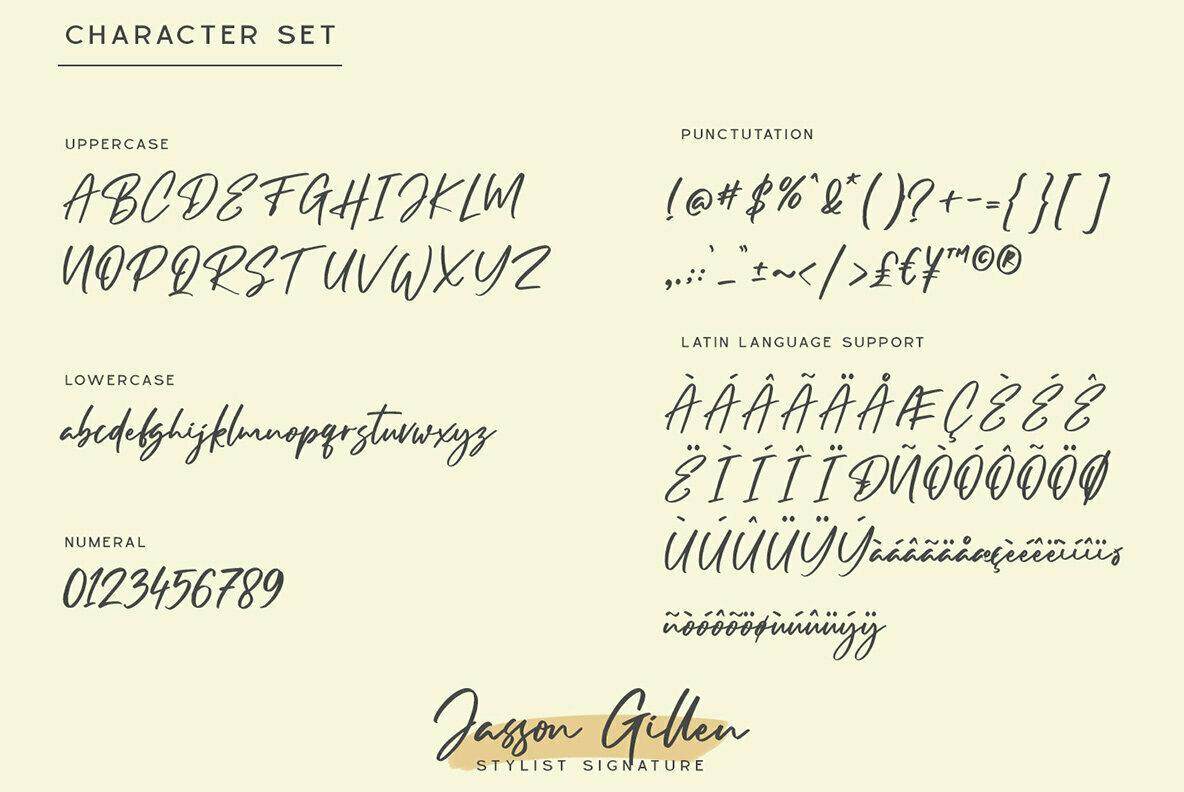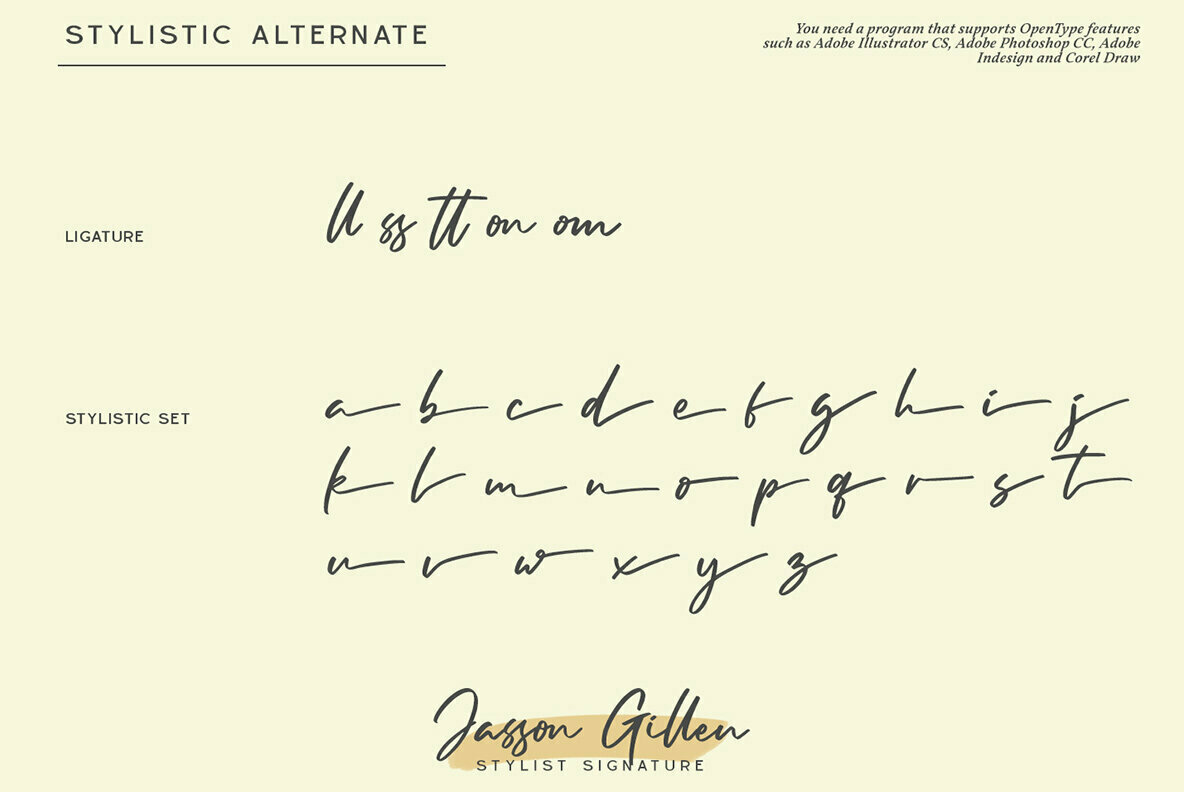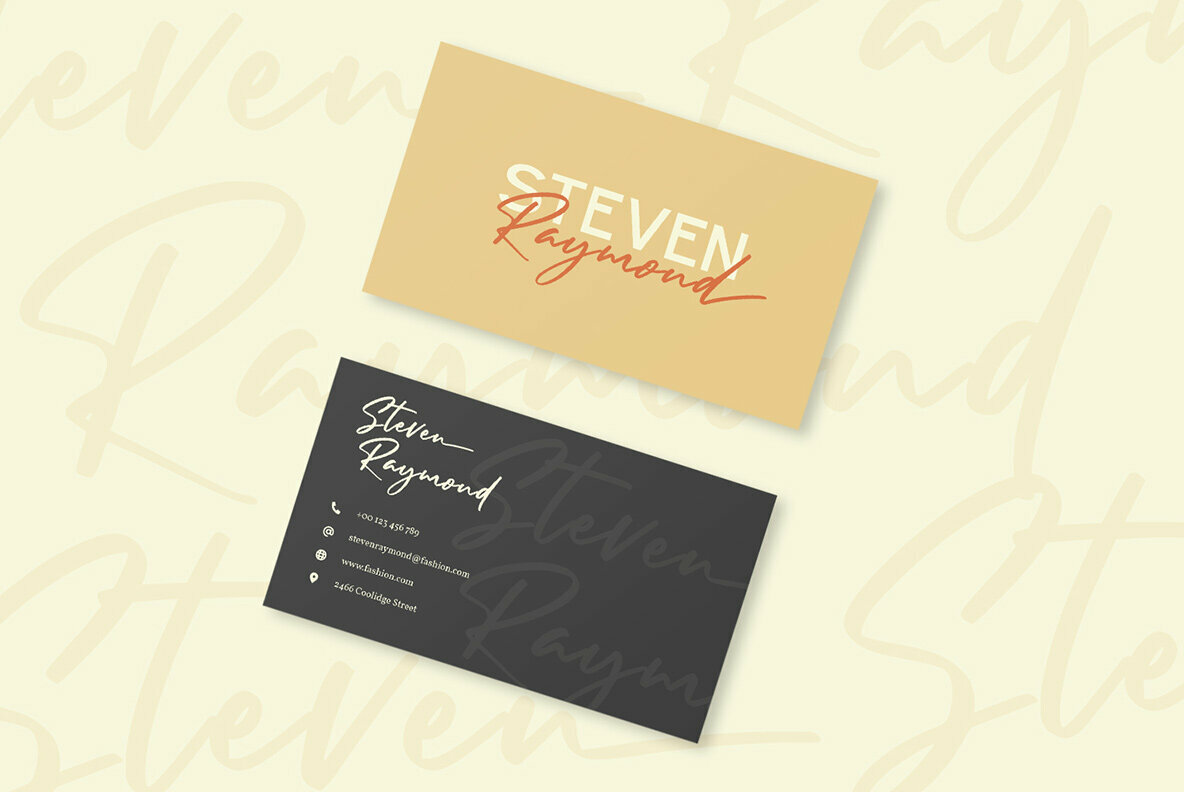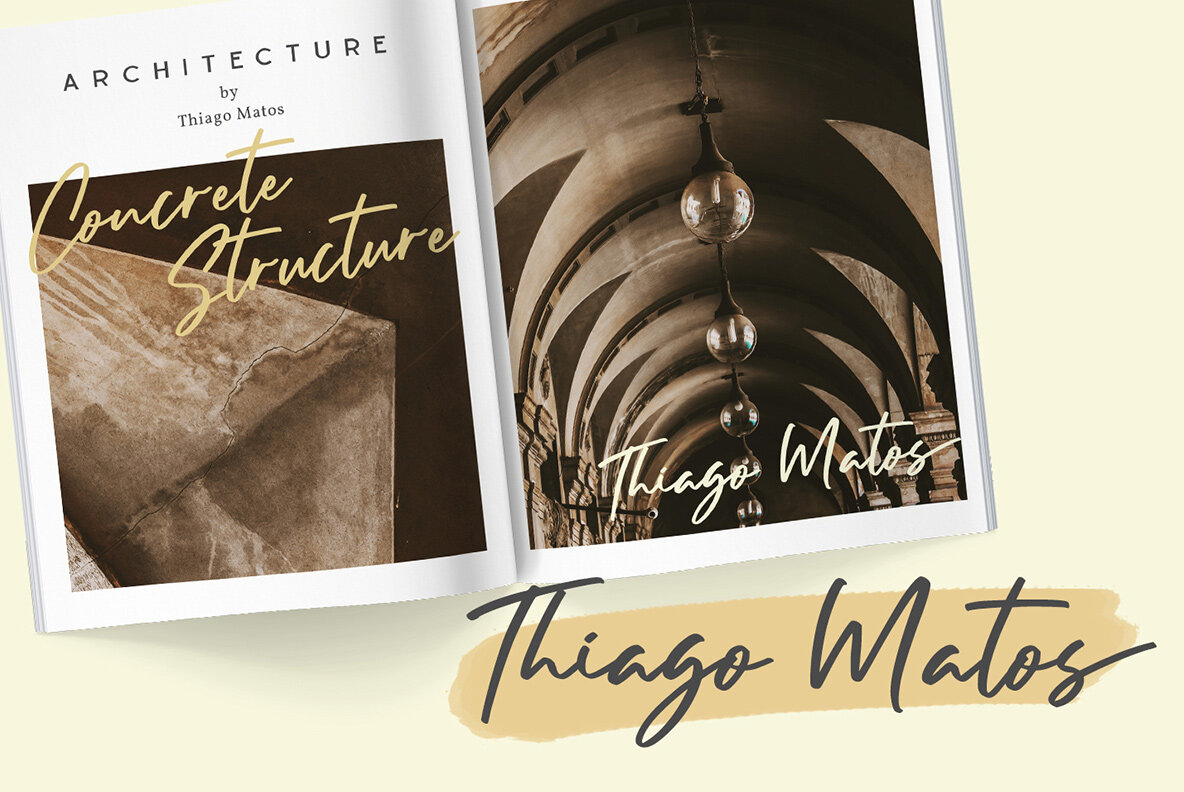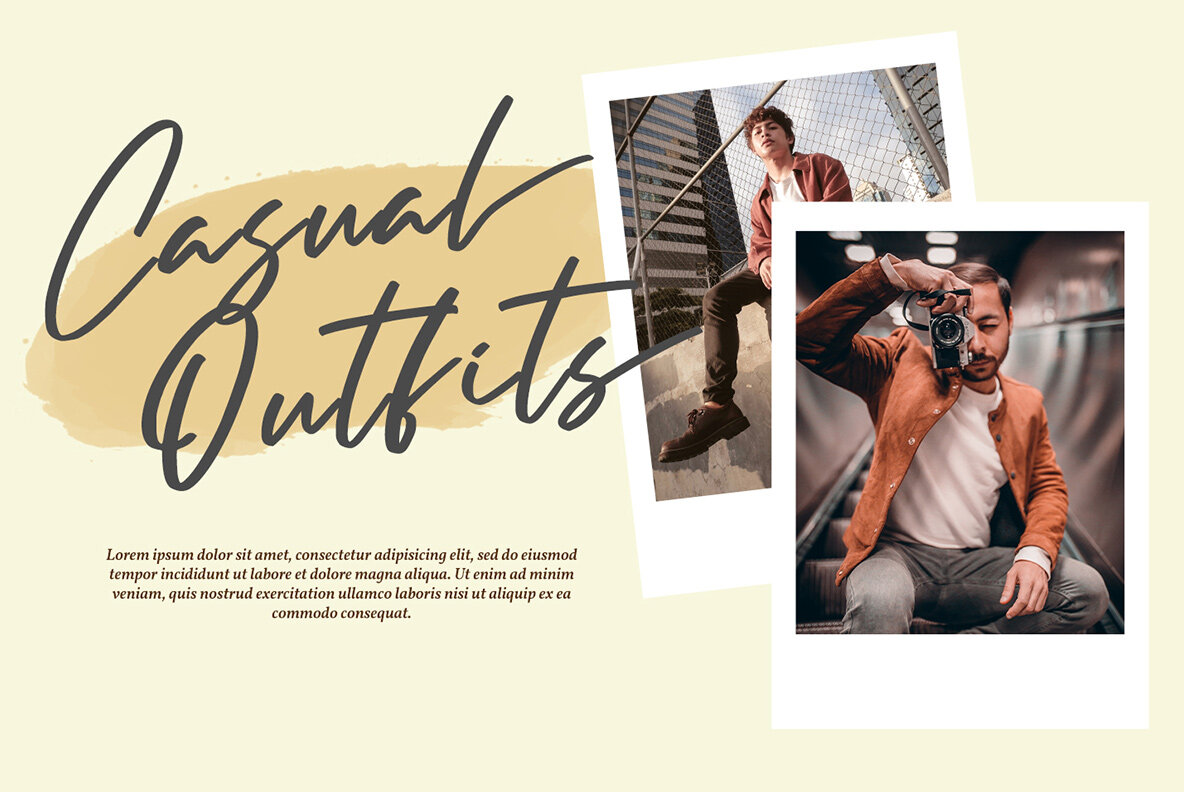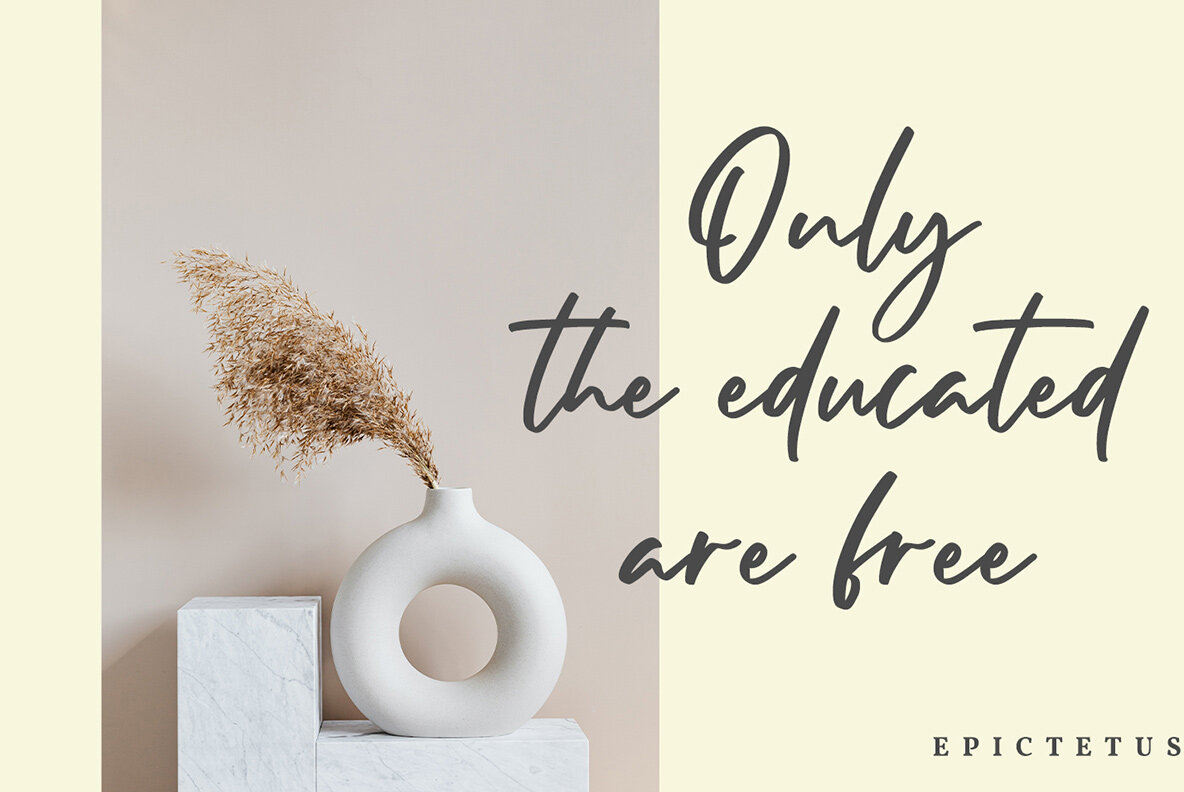
Jasson Gillen Font
Jasson Gillen
The Jasson Gillen font offers a touch of elegance with its naturally handwritten style, perfect for adding a personal flair to your designs. Whether you're working on branding, crafting inspirational quotes, or designing t-shirt prints, this font lends itself to a variety of creative applications.Jasson Gillen: A Handwritten Script for Creative Projects